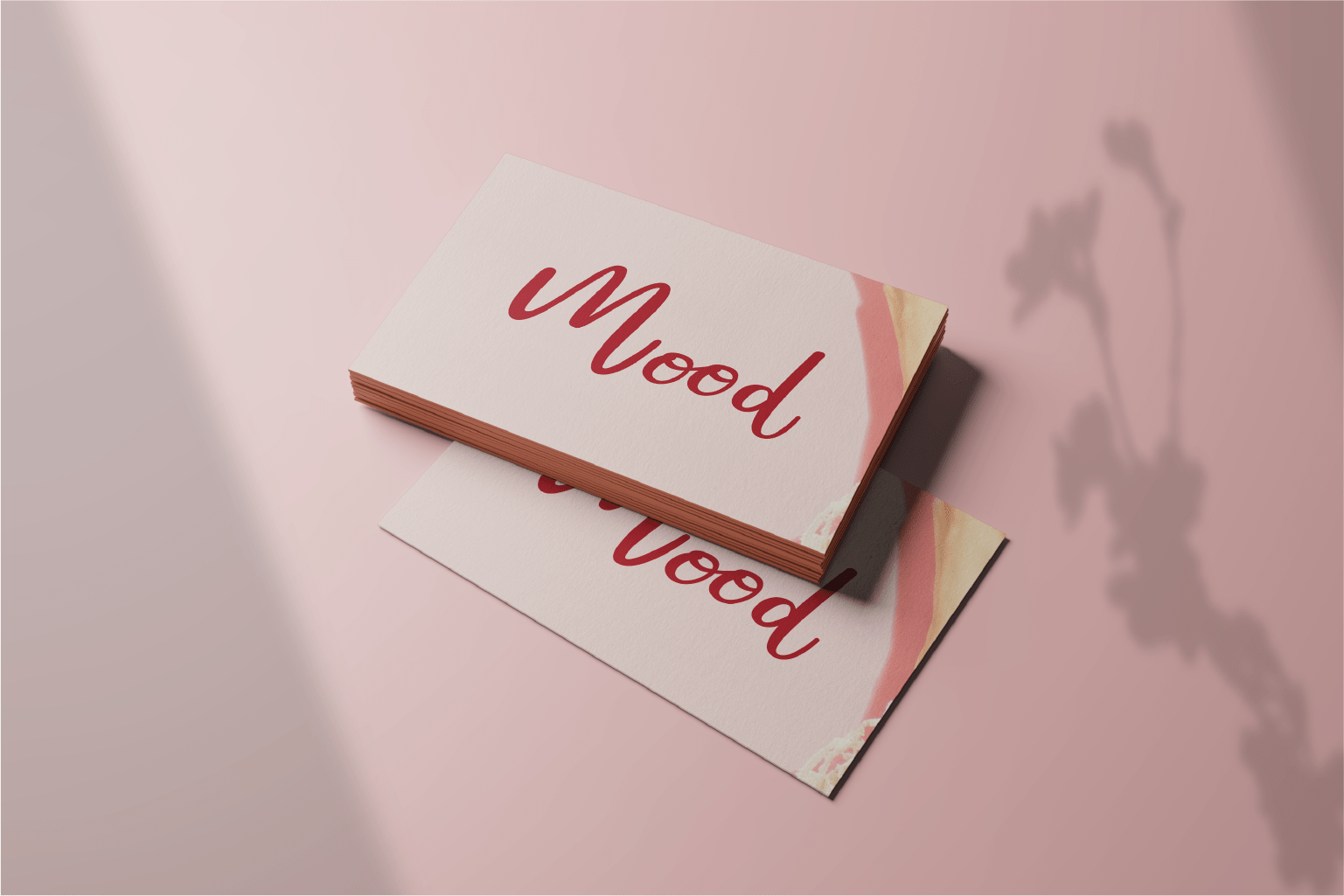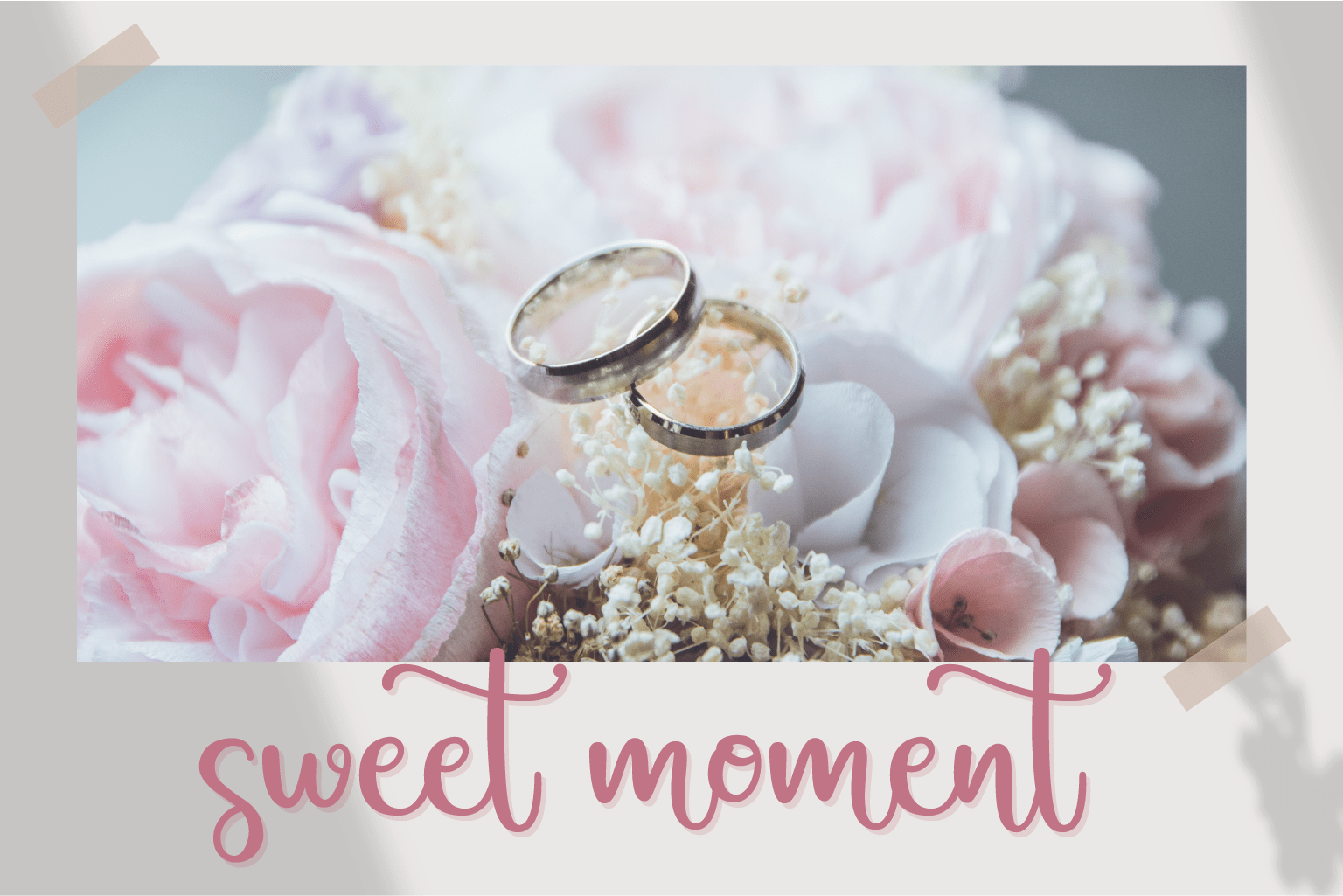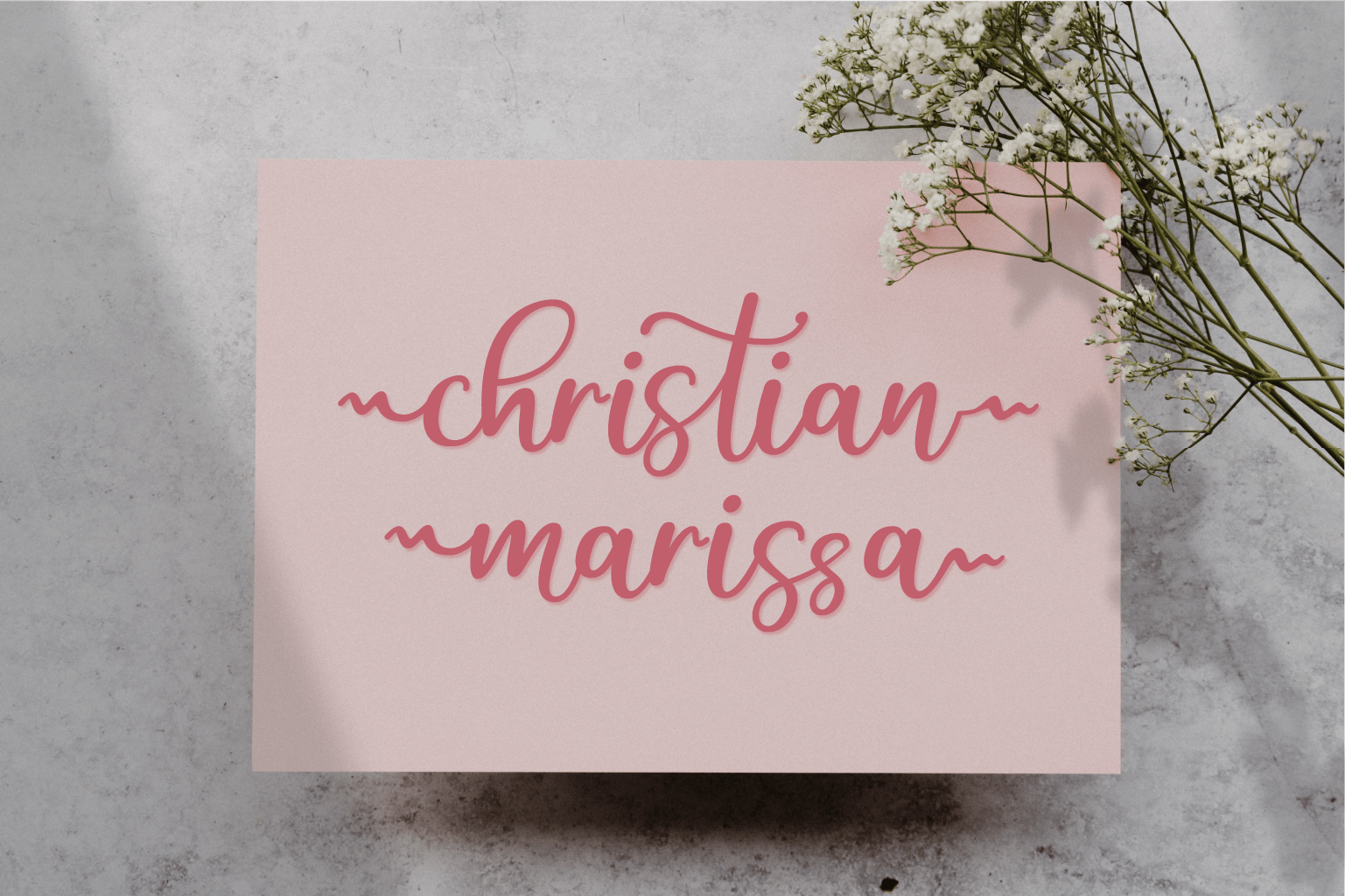
Christin Font
Christin Script Font
This is a lovely and delicate script font that exudes elegance and class. This font was particularly crafted for those who need a beautiful and refreshing look to their designs.